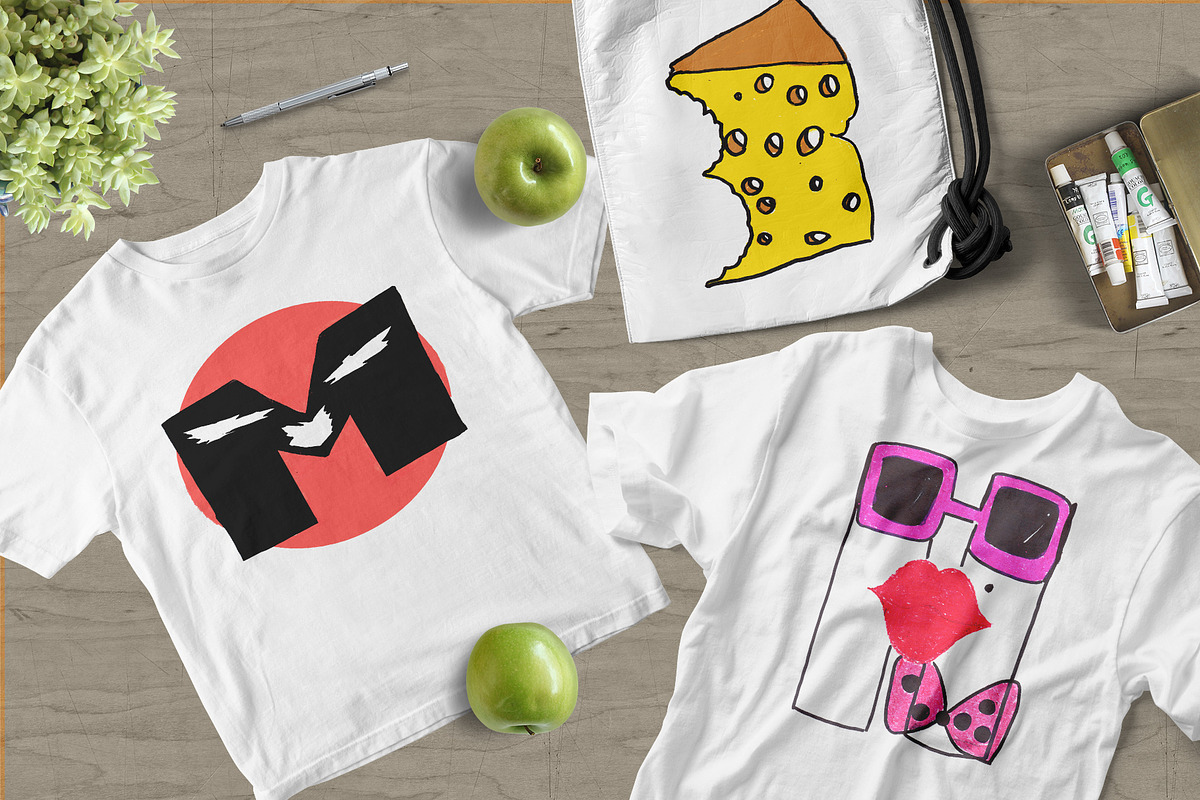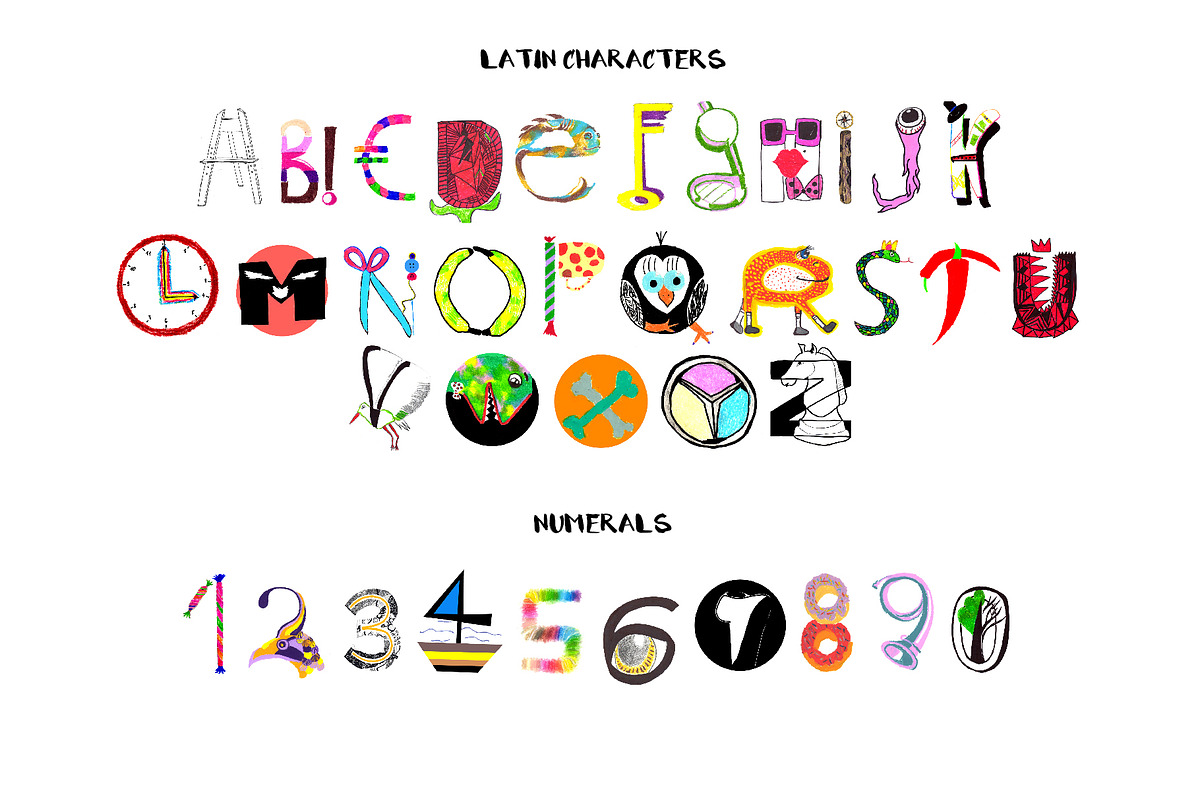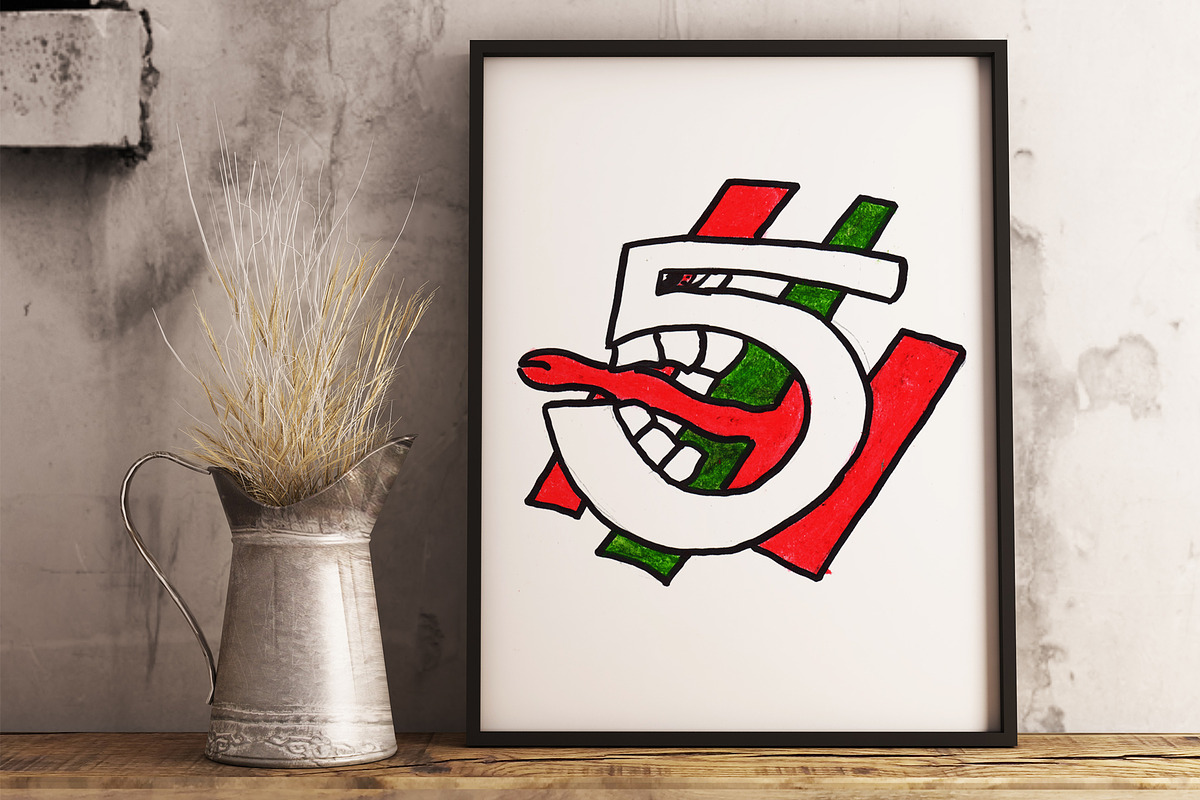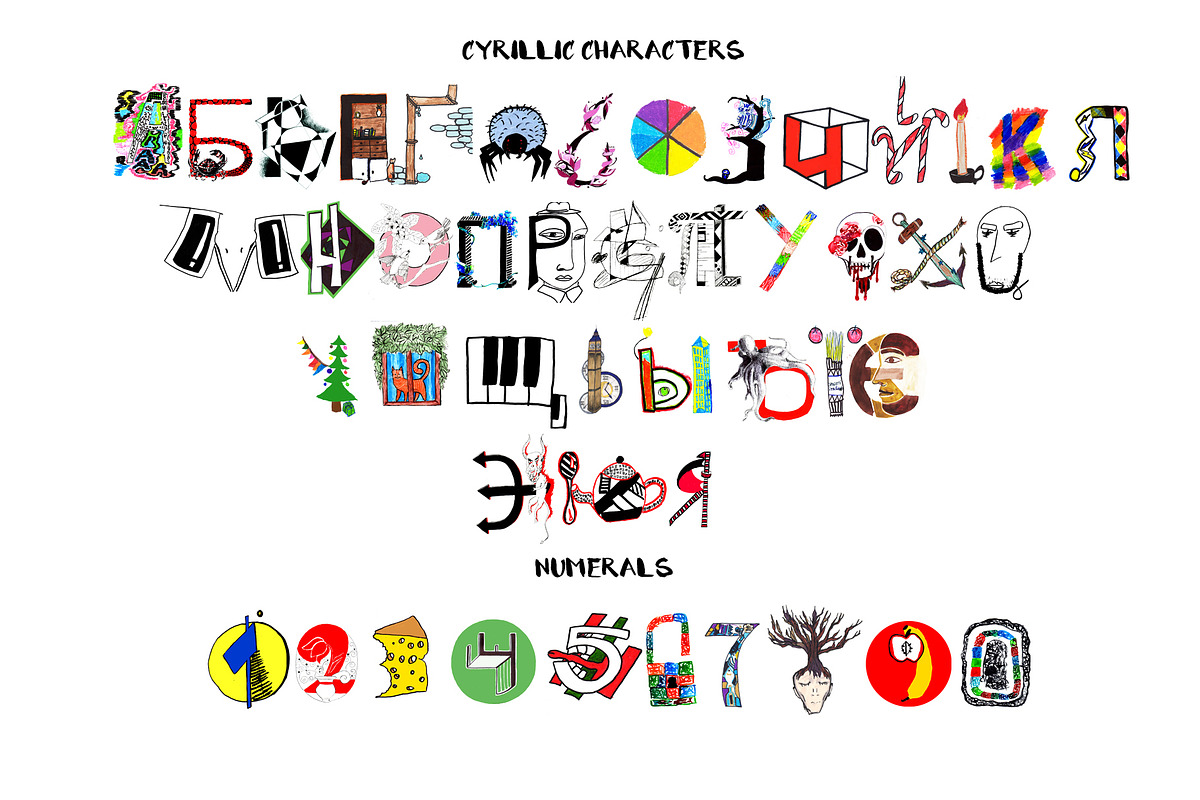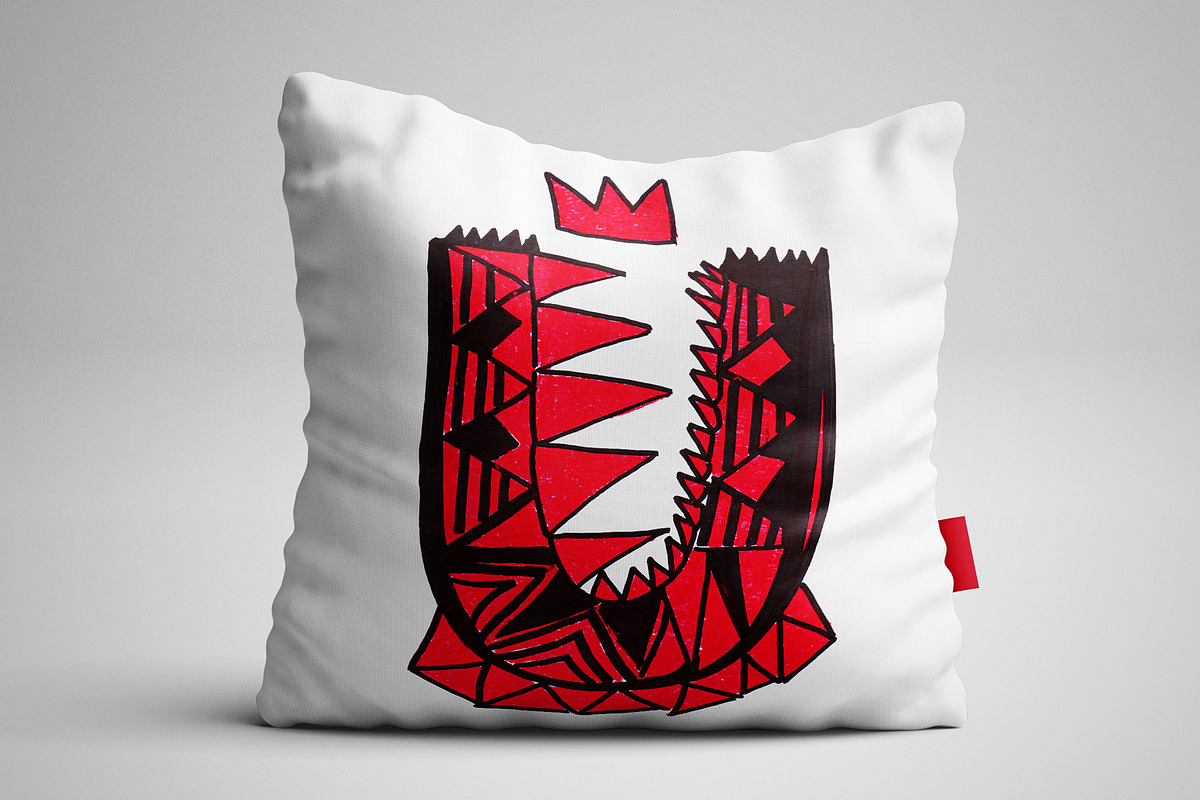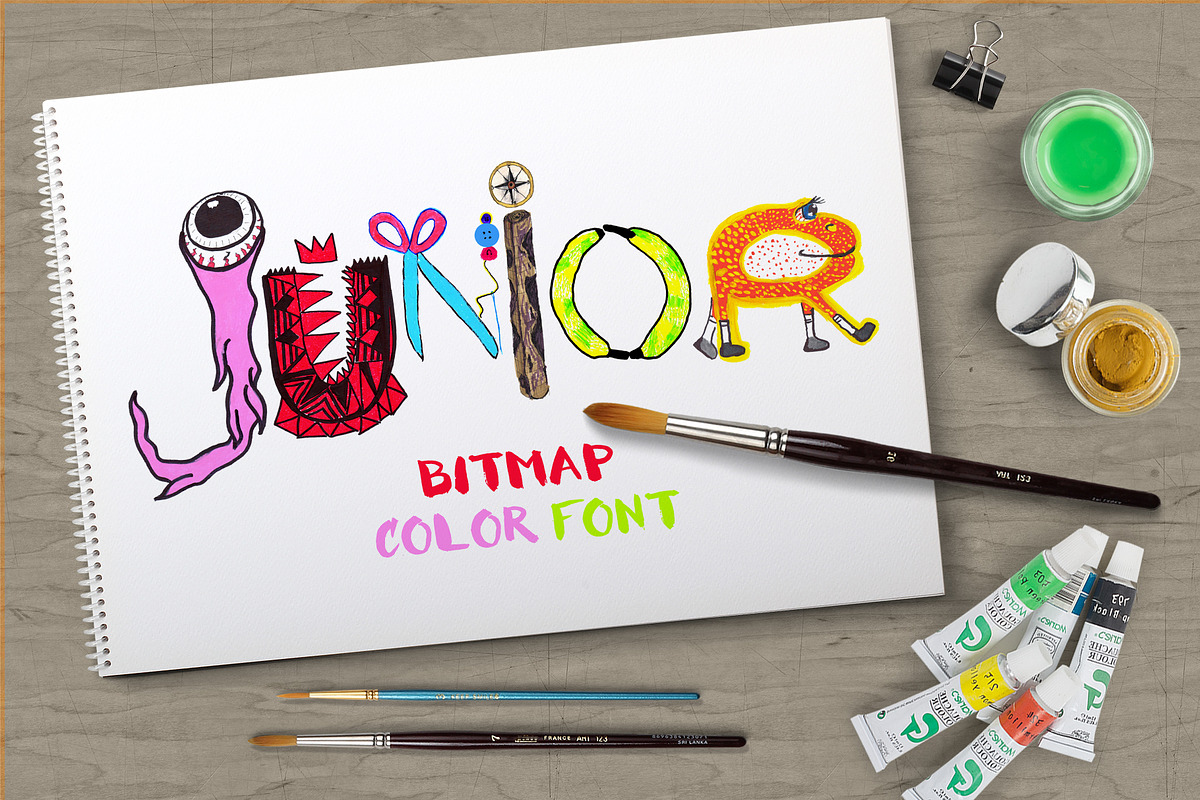
Junior bitmap color font
Handmade fun color bitmap OpenType-SVG font – Junior with Latin and Cyrillic letters! Junior font contains Latin letter and Cyrillic letter set and numerals. This font work nicely for all sorts of things including t-shirt design, typographic art, social media images and so much more!
Font features: Standard characters A-Z, 0-9 for the Latin Basic and Western European set, Cyrillic А-Я set, additional letters for the Ukrainian language. Thanks and Enjoy!